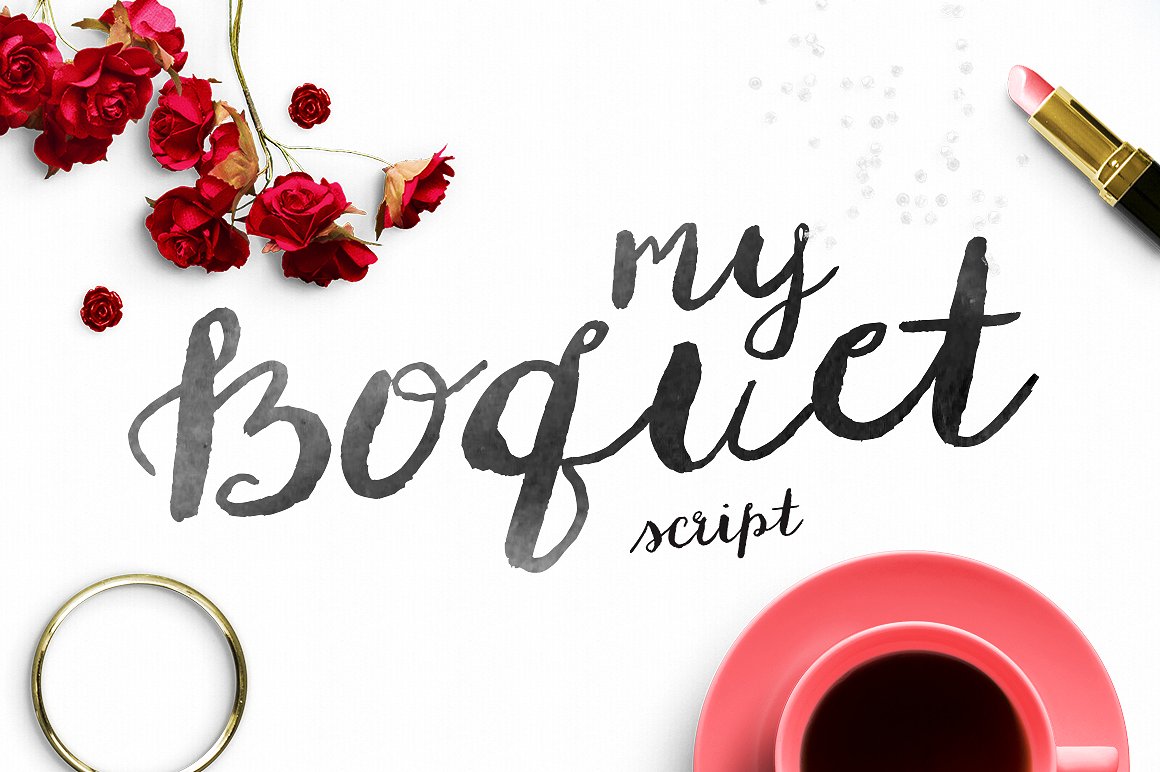
My Boquet Script
My Boquet Script beautiful thin handwritten font. It looks like it has been created with a tiny brush or pencil and is great for adding elegant decorations to your designs. Looks great on wedding invites, birthday cards, nursery decorations and more.